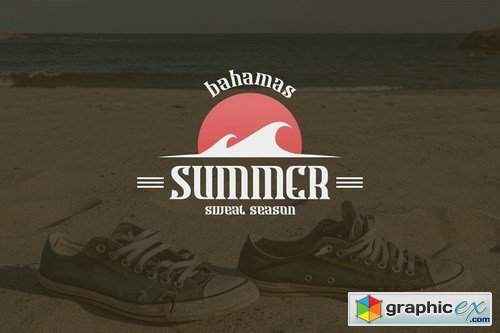
Bahamas
This pair was inspired by the vintage surfing poster design that i saw on some coffee shop, It was crafted by hand specially to add natural handmade feeling in its brand identity than i make it clean with pentool.